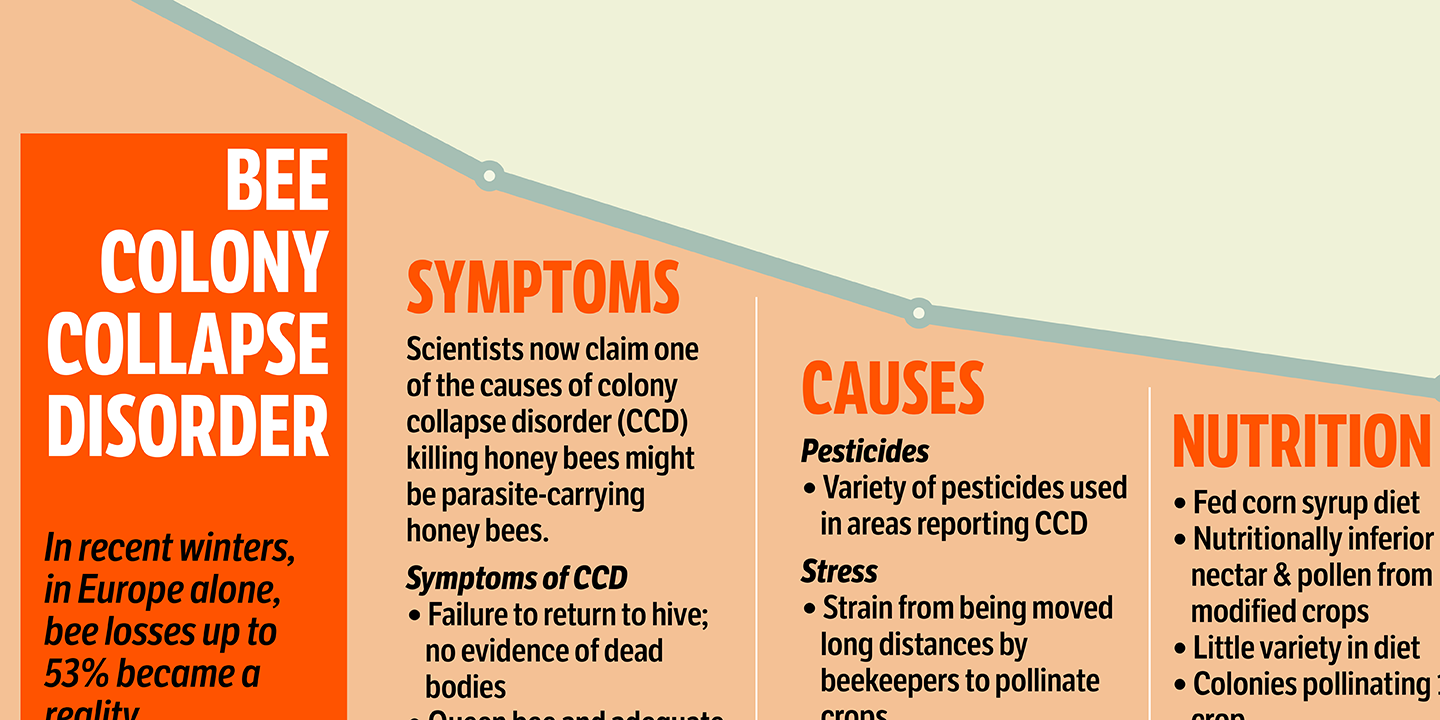
LFT Etica Font is perfect for ethical business branding, sustainable company materials, moral philosophy publications, corporate responsibility reports, environmental organization signage, social justice campaign posters, ethical investment firms, and principled design projects that require responsible typography with ethical integrity character and moral foundation sophistication.
This LFT Etica Font is exciting because it embodies the principles of ethical design and moral responsibility with thoughtfully crafted letterforms that convey integrity and principled decision-making, featuring conscientious character construction that reflects ethical considerations while maintaining exceptional readability for responsible communications and principled applications.
The LFT Etica Font family includes principled weights with ethical styling, complete character sets with responsible uppercase and lowercase letters, moral numerals, conscientious punctuation, and integrity symbols that provide comprehensive typography solutions for ethical business and social responsibility design projects requiring authentic principled aesthetics and moral appeal.
Perfect for creating responsible communications and ethical brand identities, LFT Etica Font Free Download delivers the principled typography that transforms text into meaningful expressions of ethical leadership and moral excellence. This distinctive typeface represents the commitment to ethical design principles and social responsibility, making it essential for projects celebrating moral integrity, ethical business practices, social consciousness, and any design requiring principled character with authentic ethical sophistication and timeless moral appeal that stands for what is right and just.